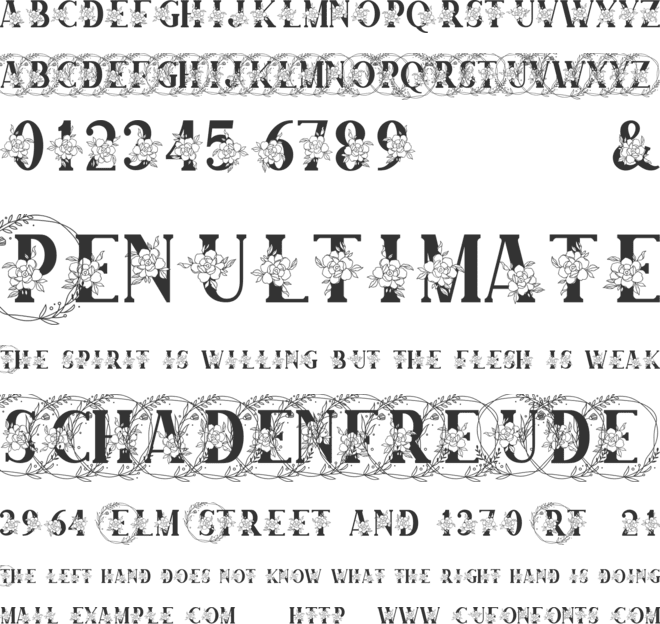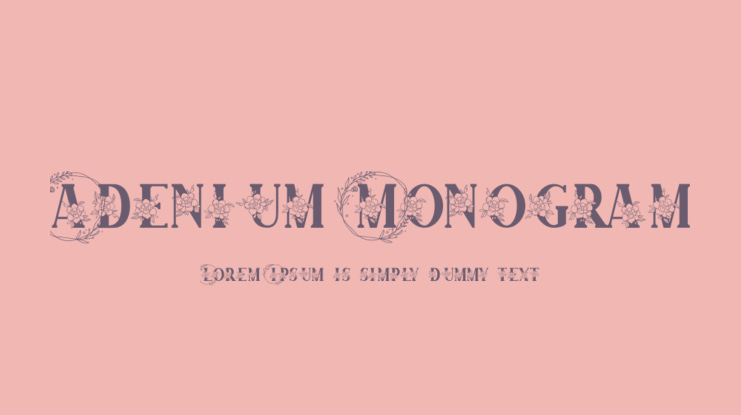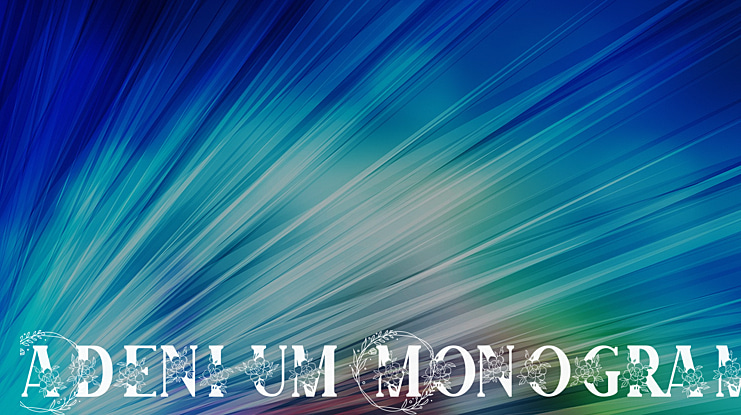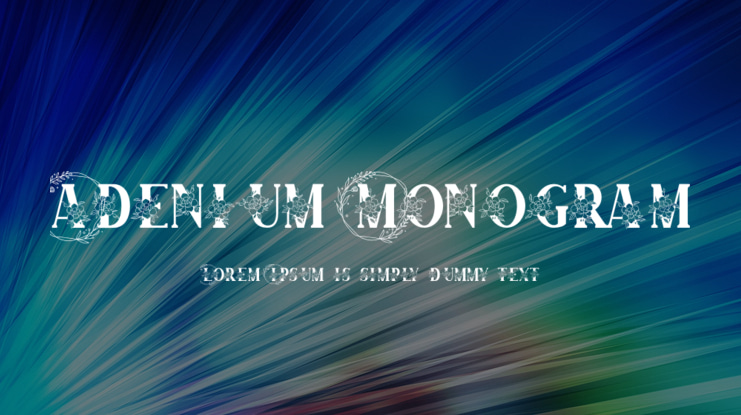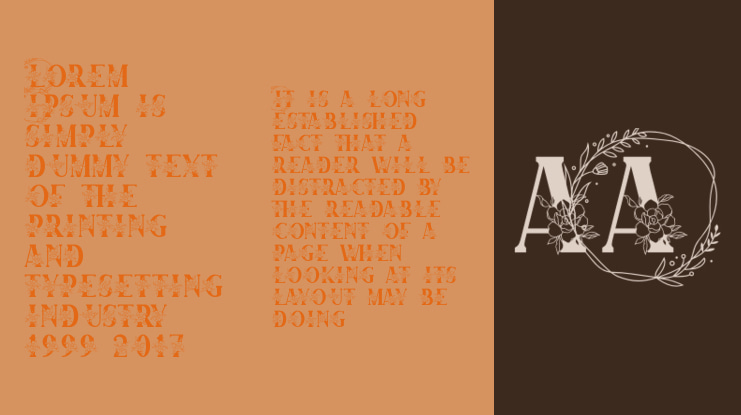
Adenium Monogram Font
Proudly present " Adenium Monogram "
This monogram fonts is ideal for crafting, branding and decorate your any project.
It is a sweet decorative font, featuring a lovely flower ornament .
Fall in love with its authentic feel and use it to create gorgeous wedding invitations, beautiful stationary art, eye-catching social media posts, and cute greeting cards.
Also with their help, you can create a logo or beautiful frame for your home.
Fall in love with its incredibly versatile style and use it to create spectacular designs!
Use this font for any crafting project that requires a personalized look!